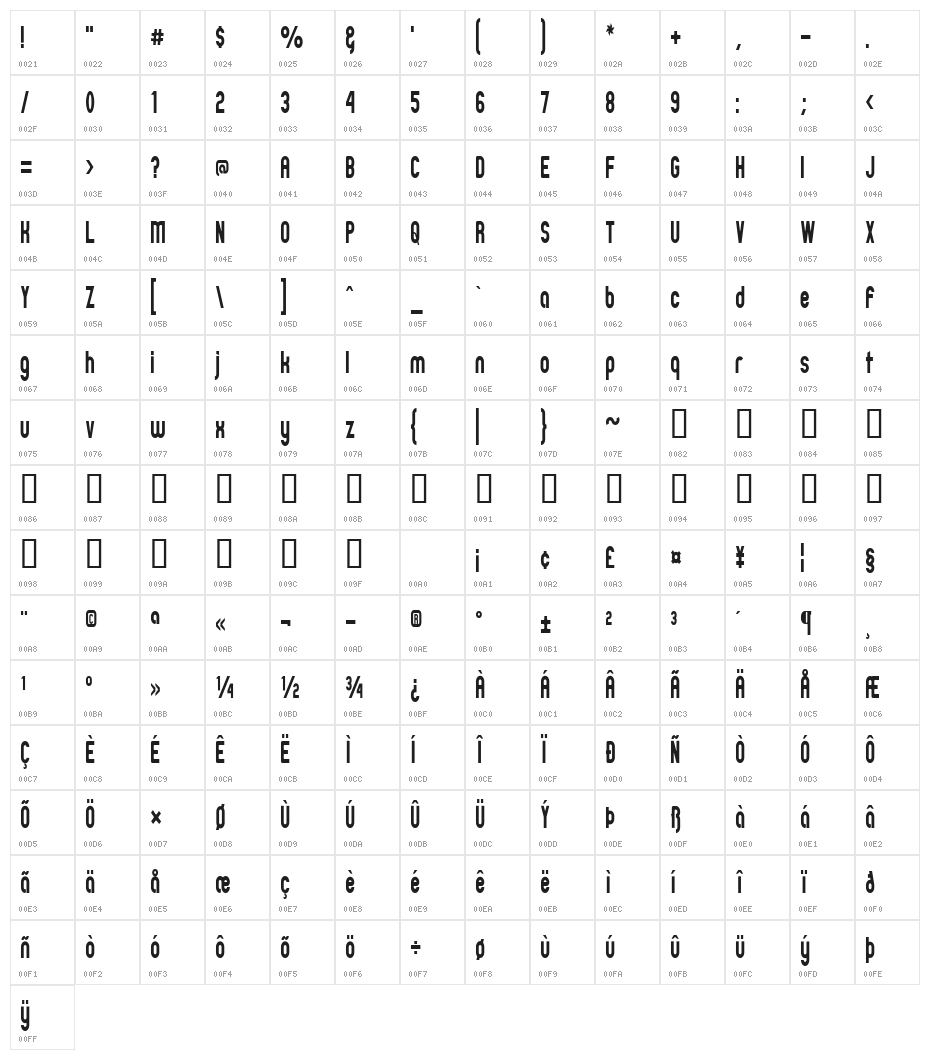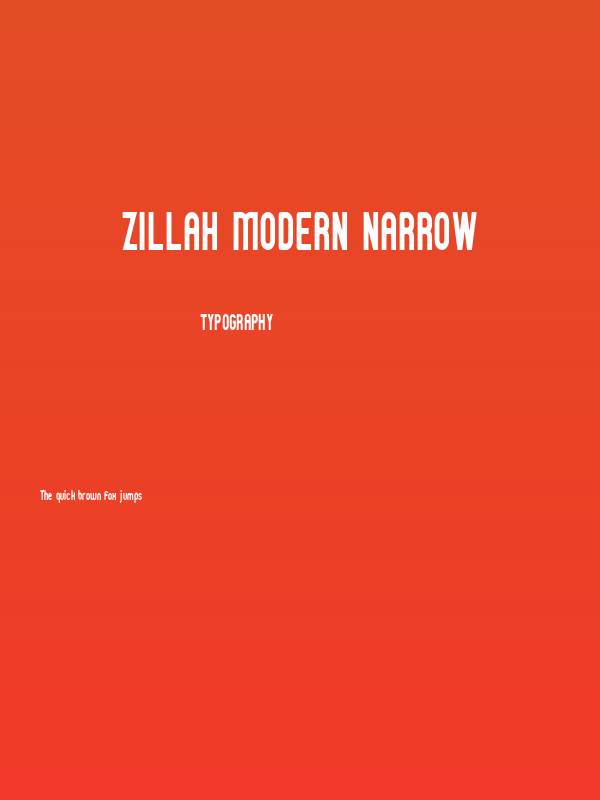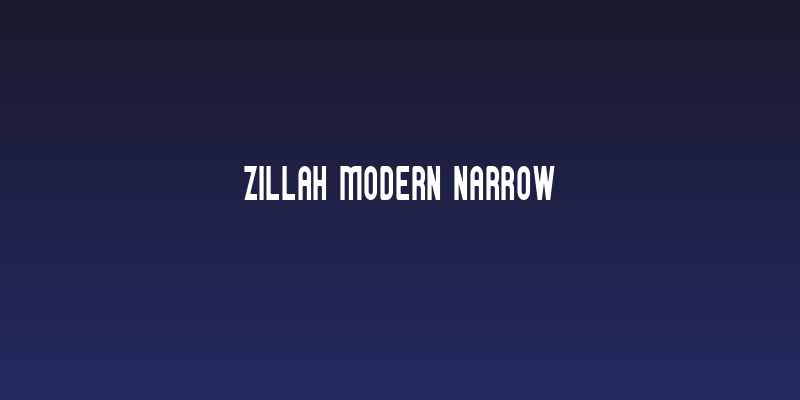
Zillah Modern Narrow Font
Zillah Modern Narrow Description
This font features a modern and narrow design, characterized by its tall and slender letterforms. The uppercase letters are bold and impactful, while the lowercase letters maintain a consistent height and width, providing a harmonious balance. The numerals are clear and easily distinguishable, making them suitable for various applications. Special characters are included, offering versatility for different contexts. The overall appearance is sleek and contemporary, making it ideal for projects that require a modern aesthetic.
| Proposed Projects | Ideal for branding, advertising, headlines, and digital media where a modern and sleek look is desired. |